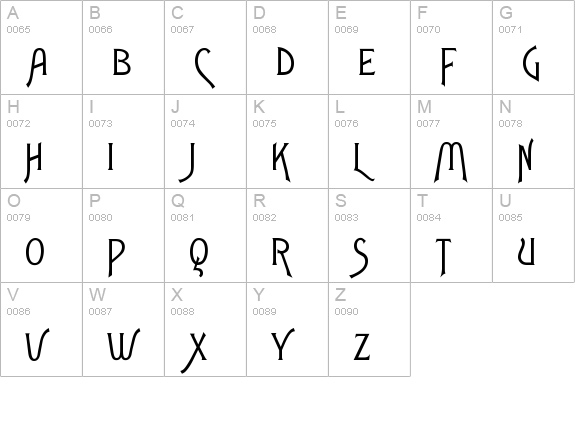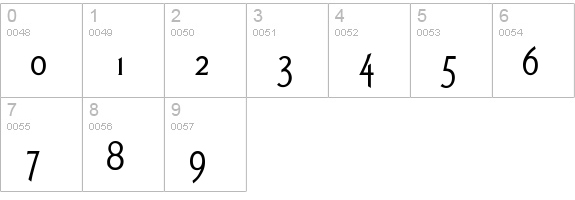
ArtGothic-Normal is the standard, neutral variant in the ArtGothic typeface family \xE2\x80\x94 well suited to general body text, paragraphs, and standard typographic work.
ArtGothic-Normal font is a stunning and elegant typeface that combines Gothic influences with modern design elements. Its intricate details and flowing lines give it a unique and artistic look that is perfect for a wide range of creative projects. Whether you're designing a poster, logo, or website, ArtGothic-Normal font will add a touch of sophistication and style. The best part? This beautiful font is completely free to download at FontsMarket.com. With just a few clicks, you can add ArtGothic-Normal to your font collection and start using it in your designs right away. Don't miss out on this amazing opportunity to enhance your projects with this exquisite font. Download ArtGothic-Normal today and let your creativity shine!